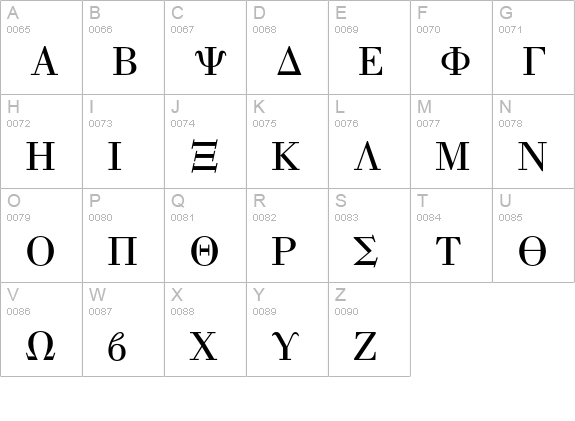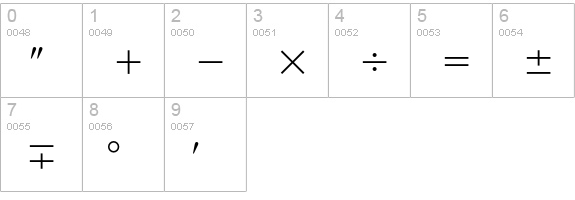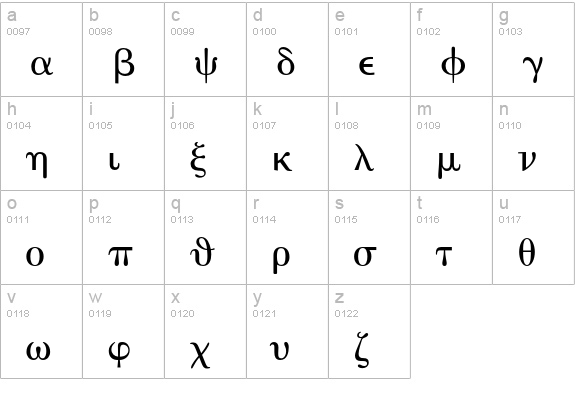
Universal Greek w. Math Pi 169 Font Details
Universal Greek w. Math Pi 169 font is a unique and versatile typeface that combines the elegance of Greek letterforms with the precision of mathematical symbols. This font is perfect for any project that requires a seamless integration of both Greek and mathematical elements. The Universal Greek w. Math Pi 169 font features a wide range of characters, including uppercase and lowercase Greek letters, mathematical symbols, and special characters. Each character is meticulously designed to ensure clarity and readability, making it suitable for various applications such as textbooks, scientific papers, presentations, and more. One of the standout features of the Universal Greek w. Math Pi 169 font is its compatibility with the widely used Pi 169 mathematical symbol set. This ensures that you have access to a comprehensive library of mathematical symbols, allowing you to express complex equations and formulas with ease. What sets this font apart is that it is freely available to download at FontsMarket.com. This means that you can enhance your projects with the elegance and precision of Universal Greek w. Math Pi 169 font without any cost. Whether you are a student, educator, researcher, or designer, this font offers a valuable resource that can elevate your work to the next level. Don't miss out on the opportunity to enhance your Greek and mathematical compositions with the Universal Greek w. Math Pi 169 font. Download it for free at FontsMarket.com and unlock a world of possibilities for your next project.